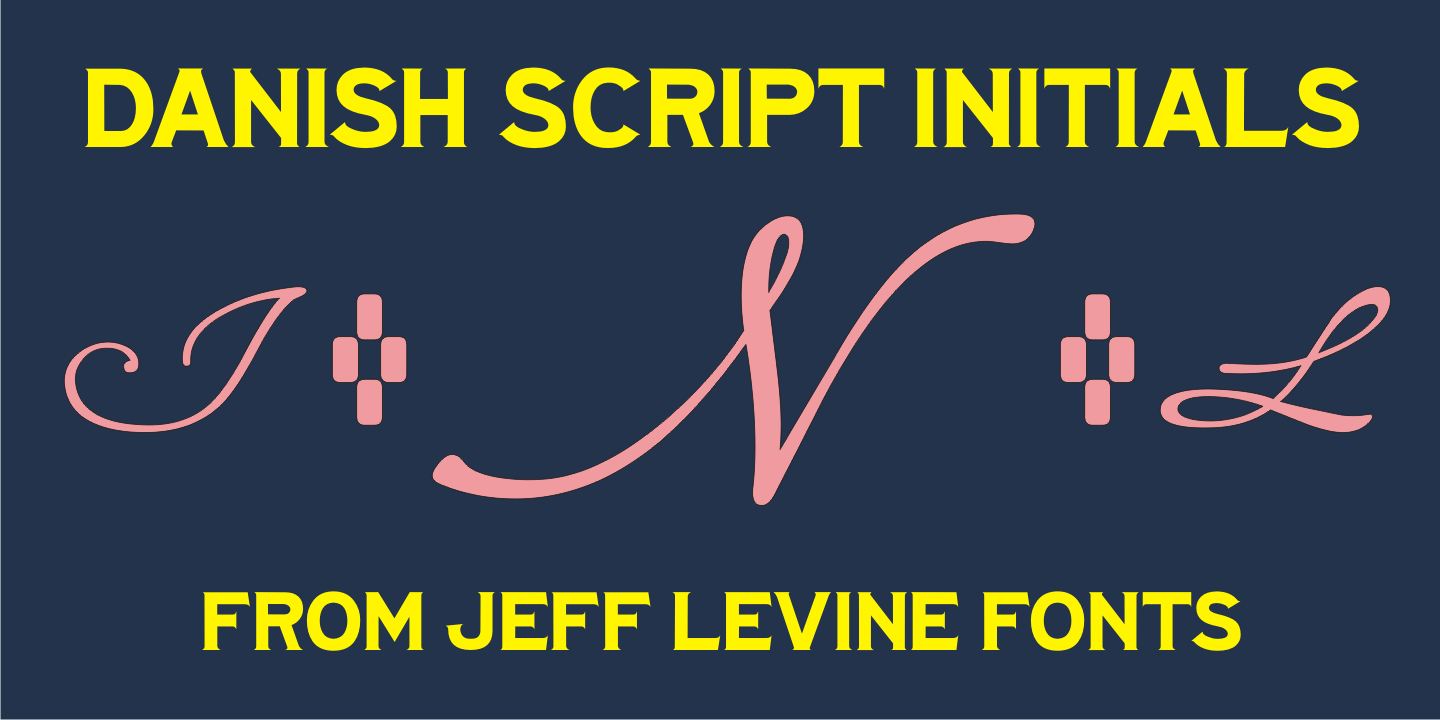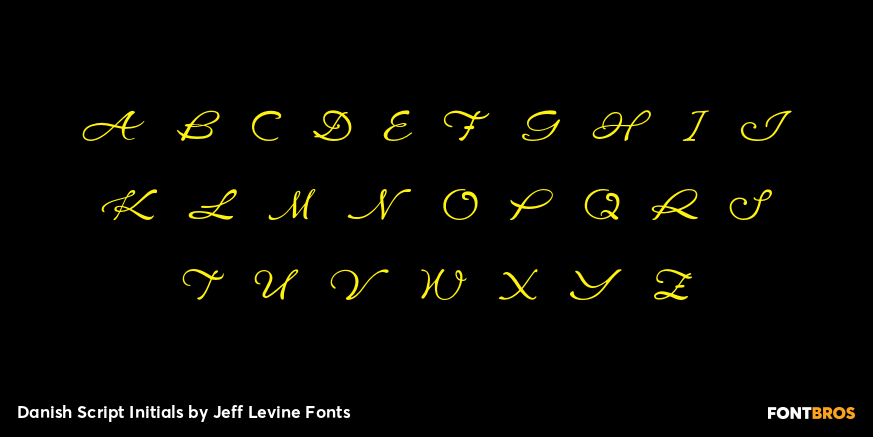
Danish Script Initials
A set of transfer patterns for sewing decorative monogram initials on clothing was manufactured by Women's Day magazine circa the 1940s.
Designed by renowned Copenhagen-born industrial artist and letter Gustav Boerge Jensen [April 8, 1898 – June 27, 1954], these initials have been redrawn into a digital font entitled Danish Script Initials JNL.
Large initials are on the uppercase A-Z keys, while smaller initials are on the lower case a-z keys and are centered to the larger cap height. An ornament is provided on the asterisk key, and can be placed between the small initials and the larger initial for decorative effect.